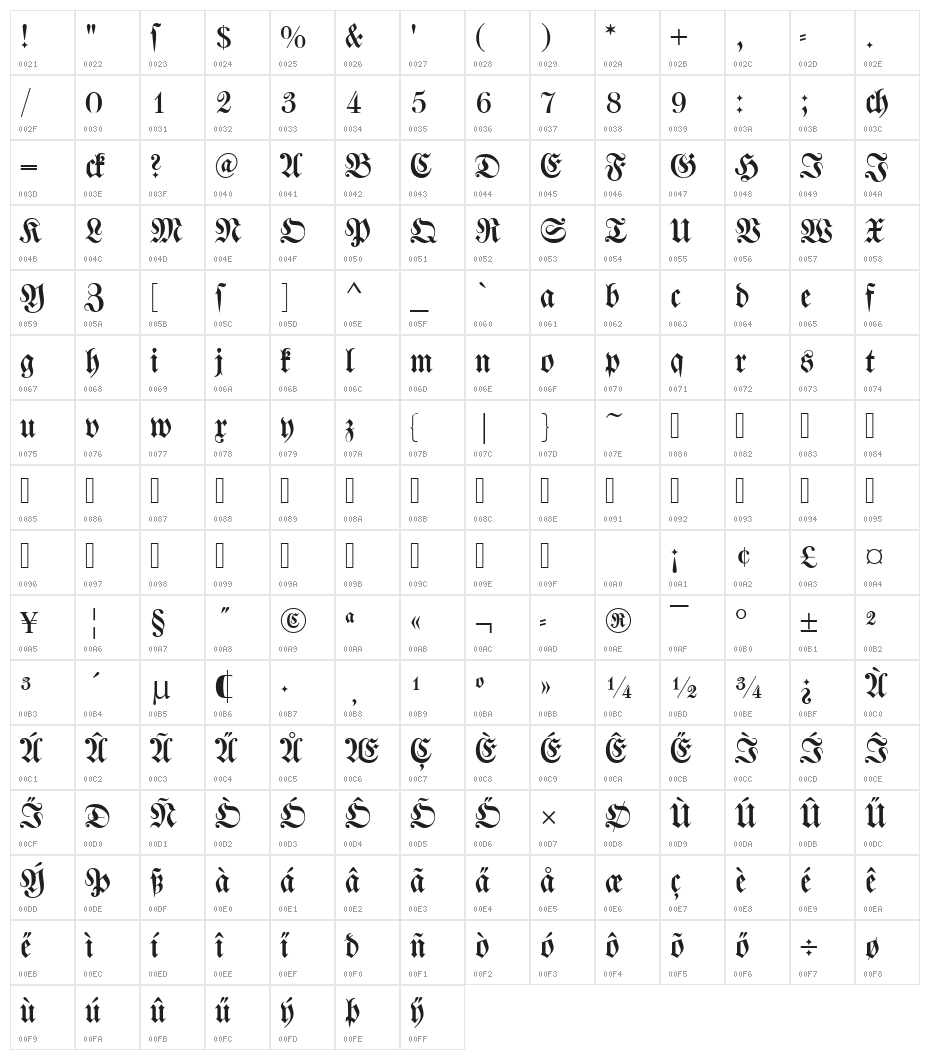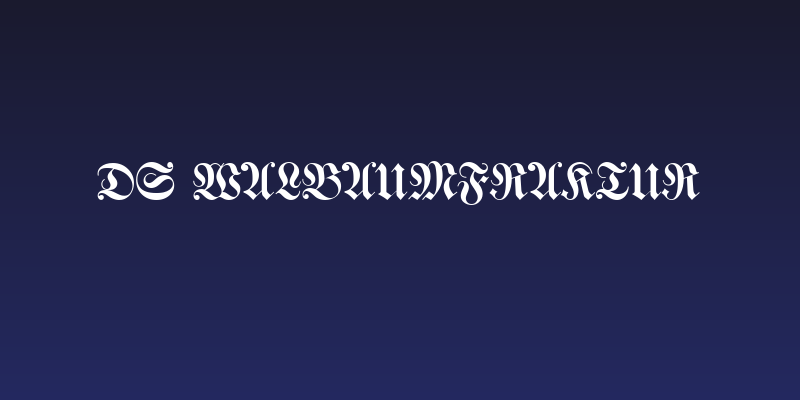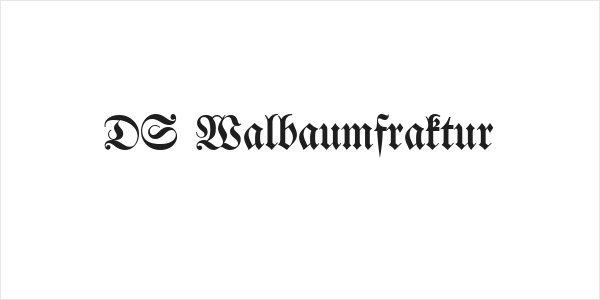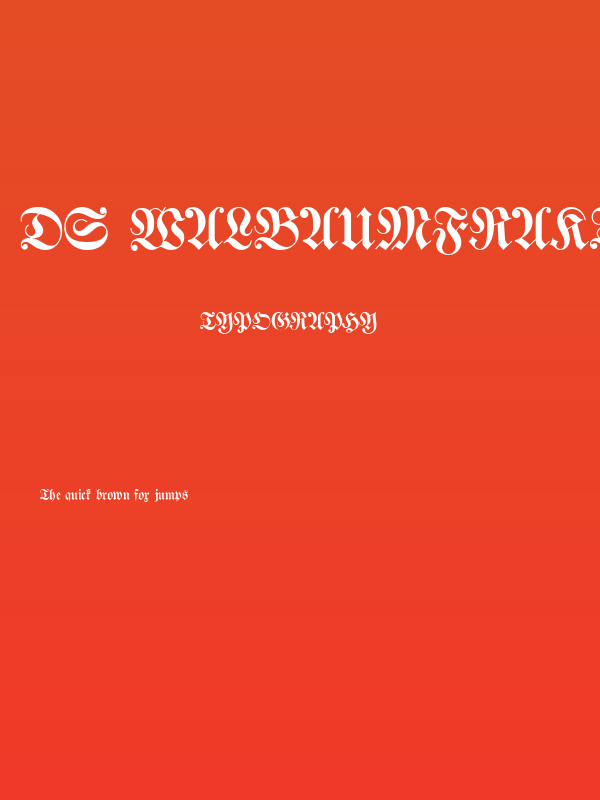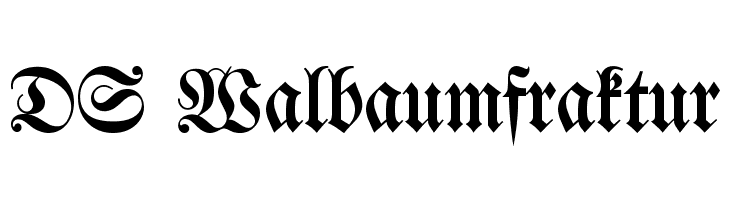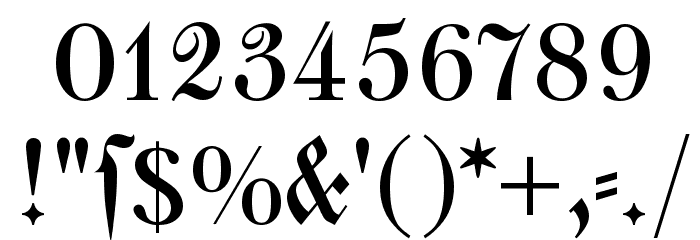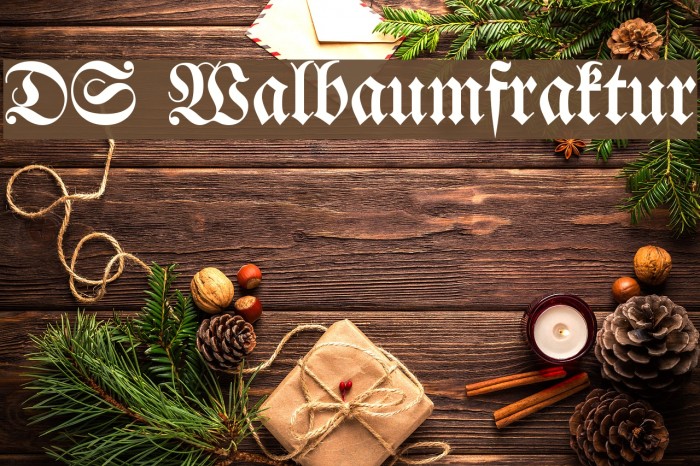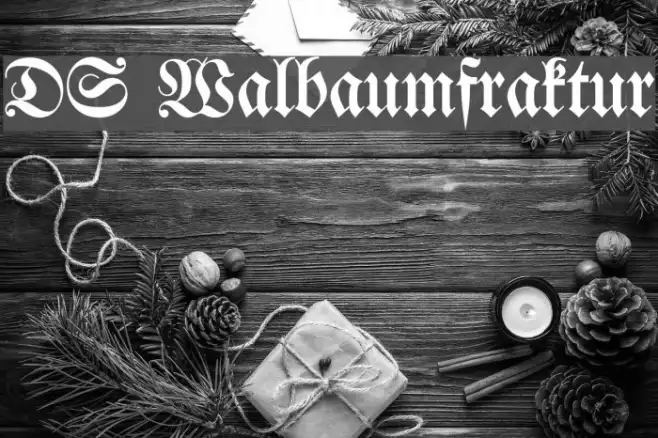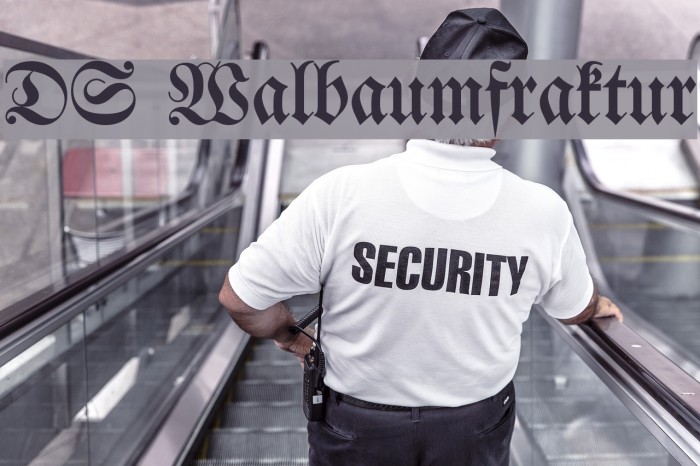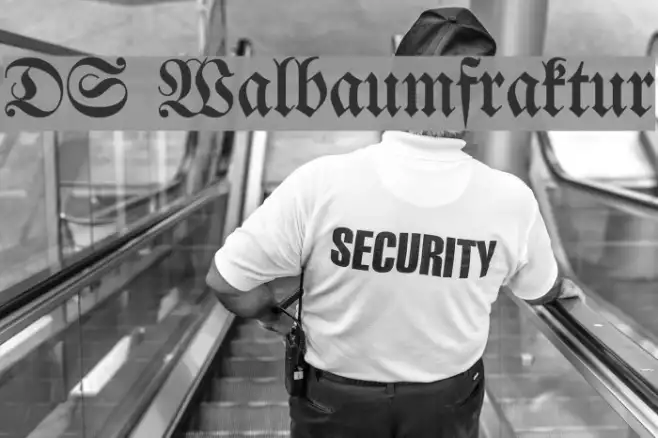
This font exhibits a classic blackletter style, characterized by its ornate and intricate letterforms. The uppercase letters are highly decorative, featuring sharp angles and elaborate flourishes that give a sense of historical elegance. The lowercase letters maintain this intricate design, with a slightly more condensed form that enhances readability while preserving the traditional aesthetic. The numerals are bold and consistent with the overall style, providing a strong visual presence. Special characters are equally detailed, seamlessly integrating with the rest of the font. This typeface is reminiscent of medieval manuscripts and traditional German typography, offering a sense of antiquity and sophistication.
| Proposed Projects | Ideal for projects requiring a historical or medieval theme, such as book covers, certificates, or branding for vintage-inspired products. |